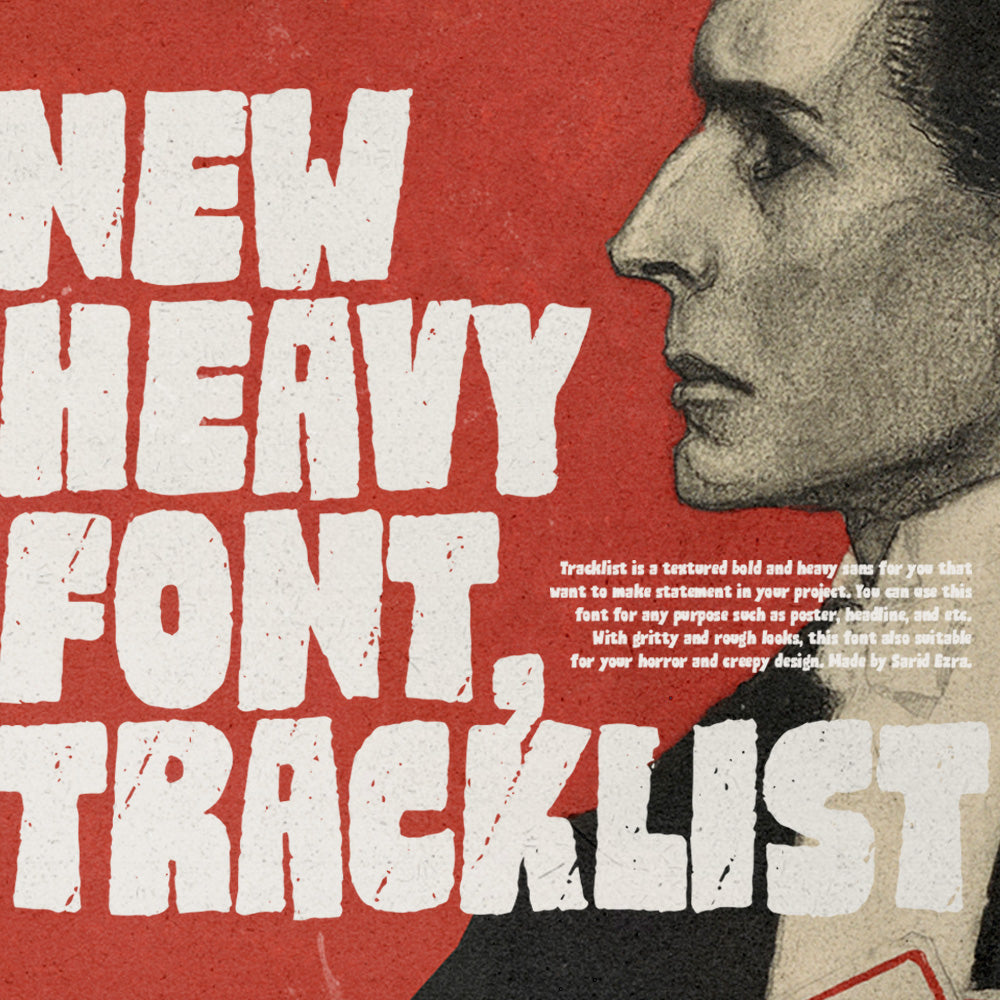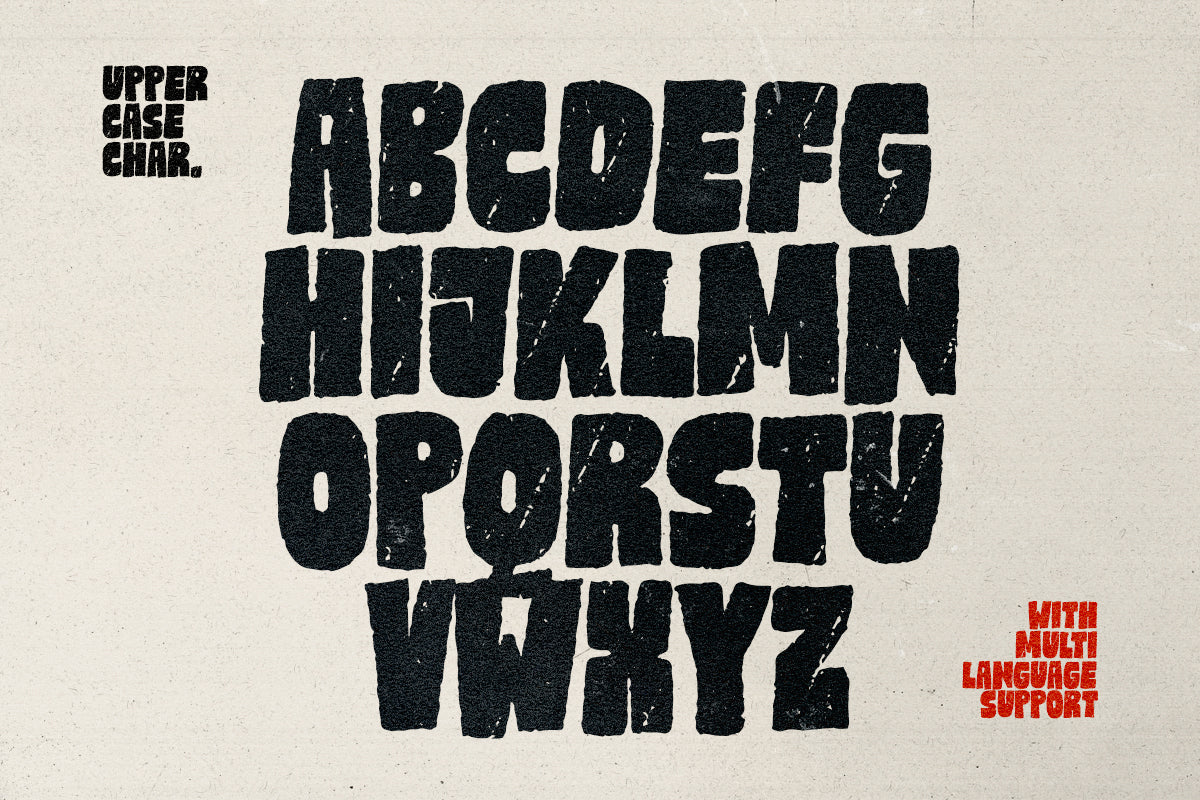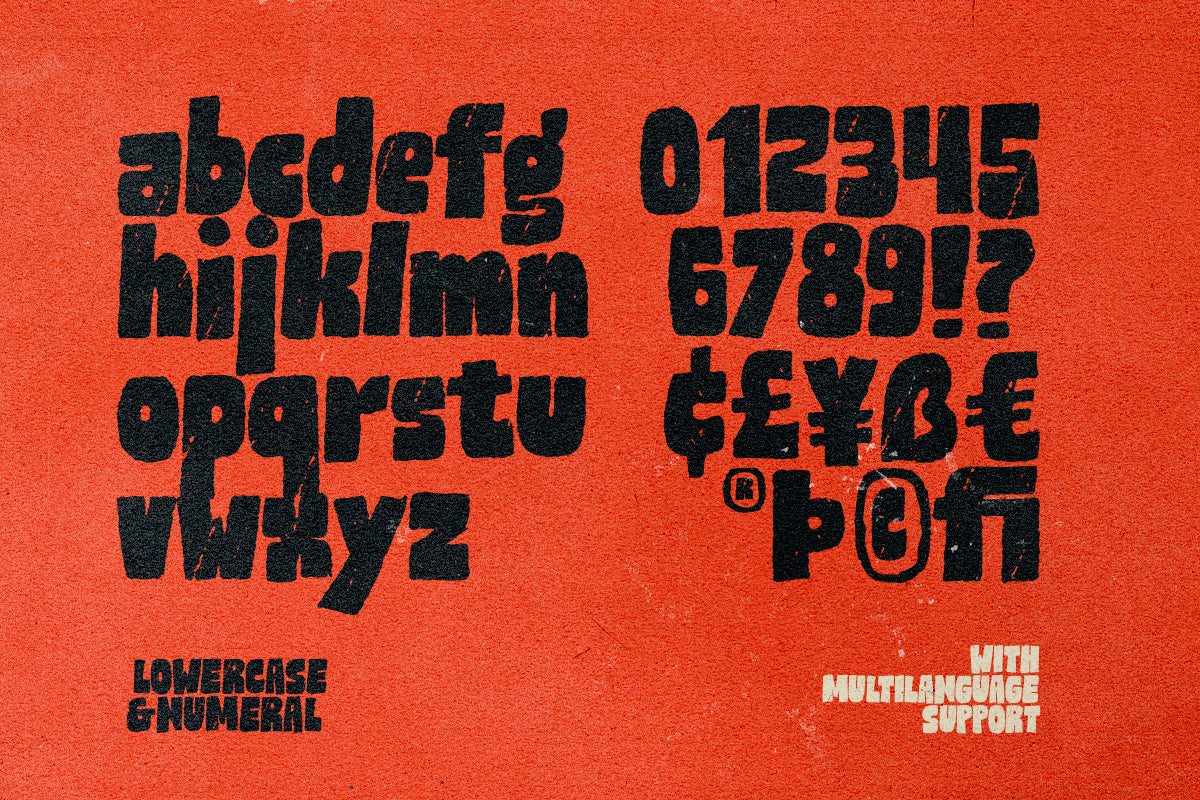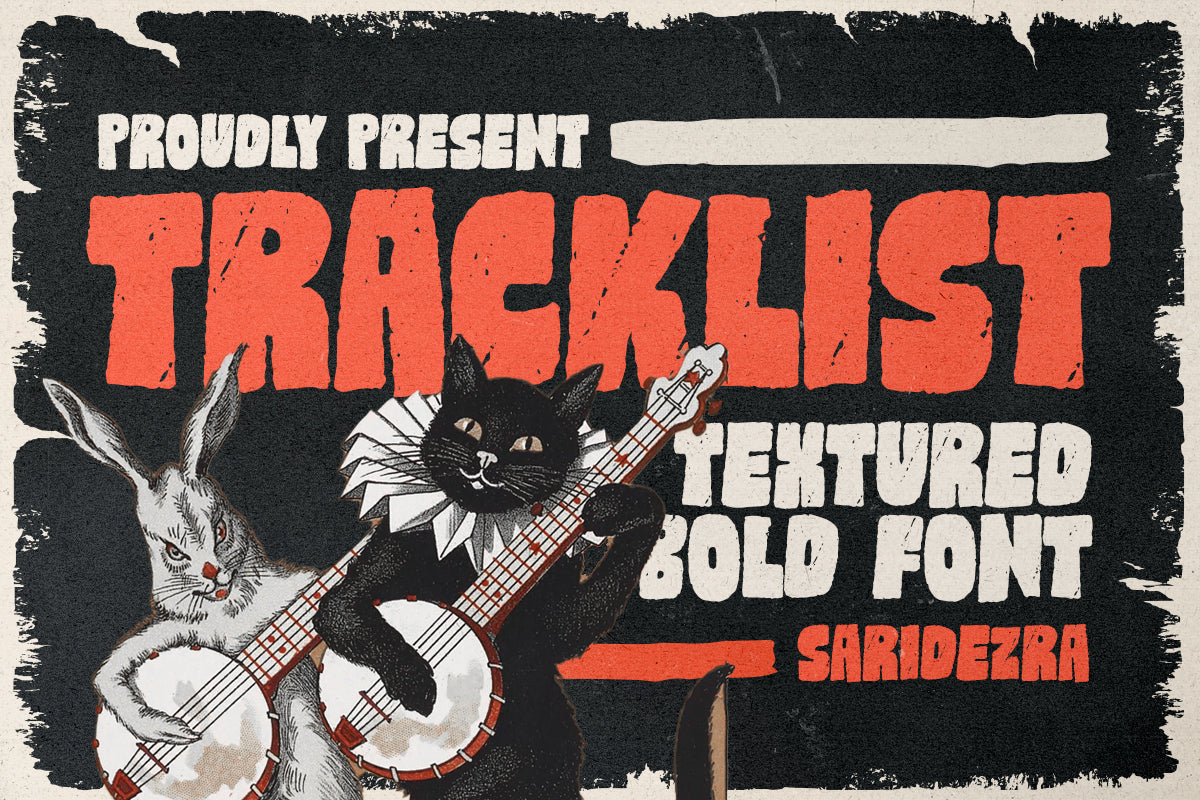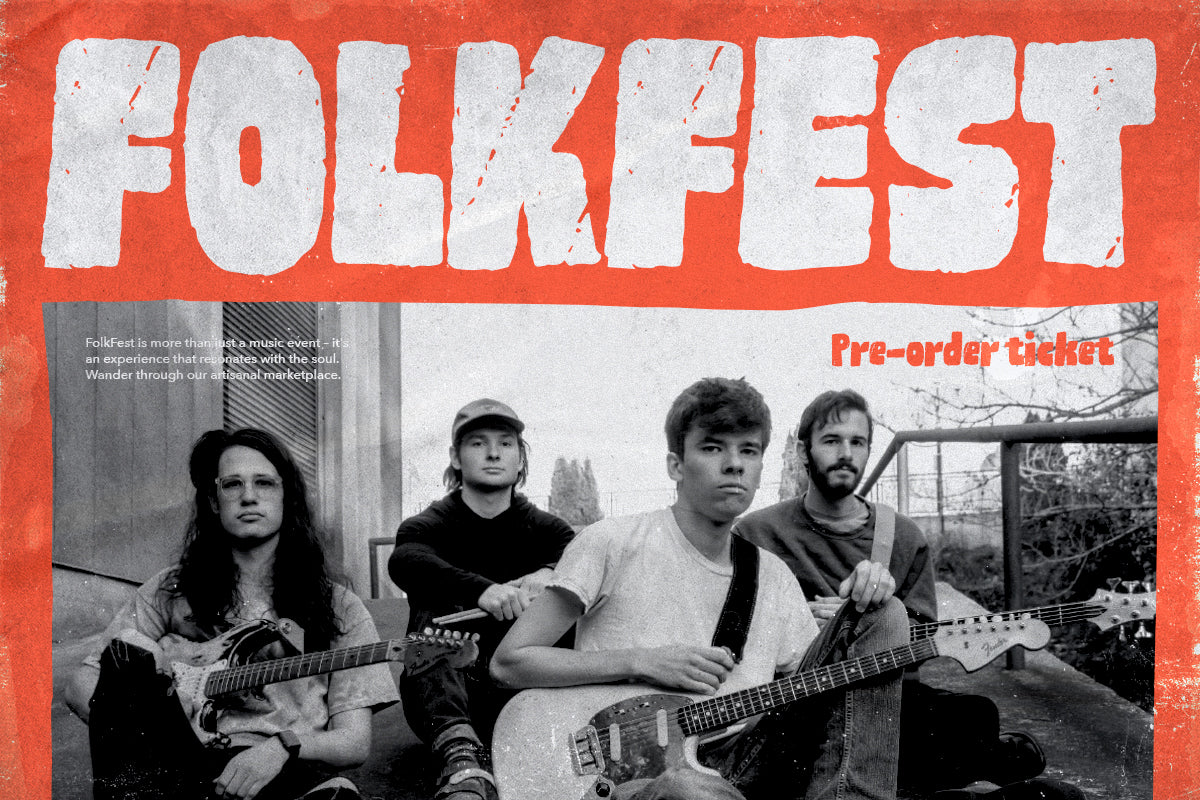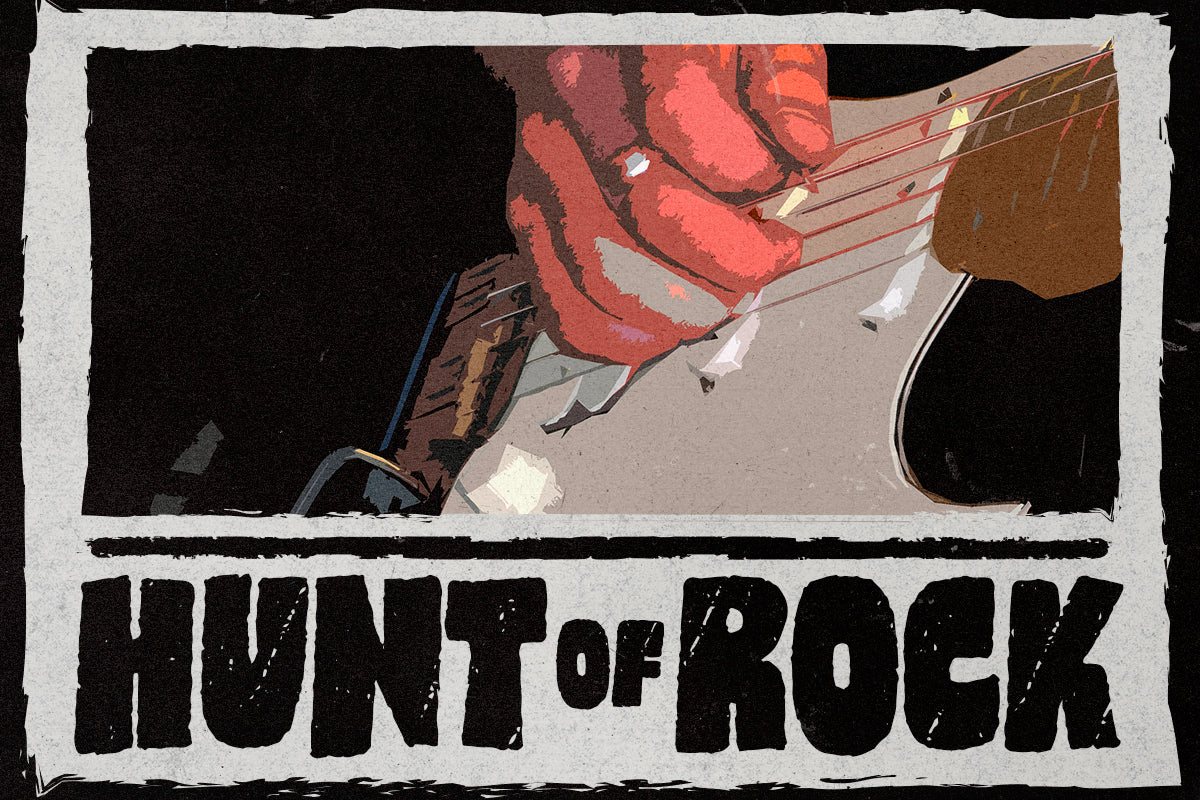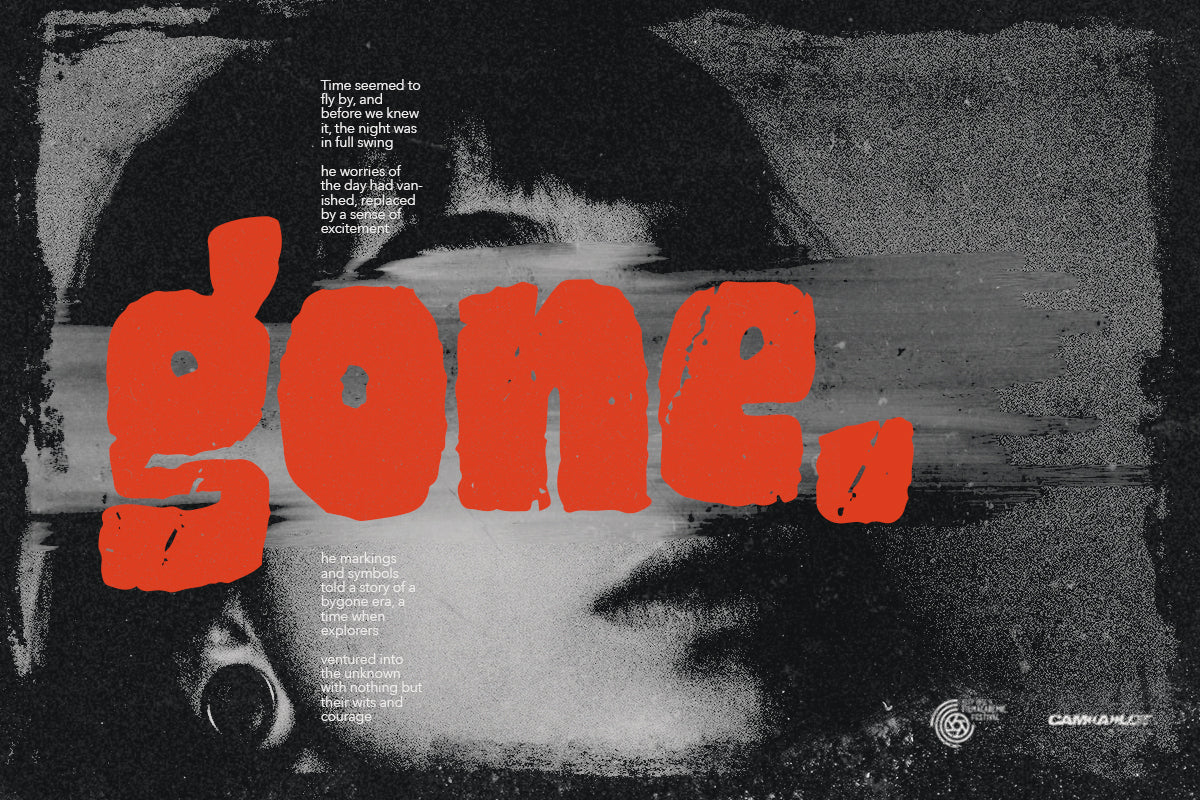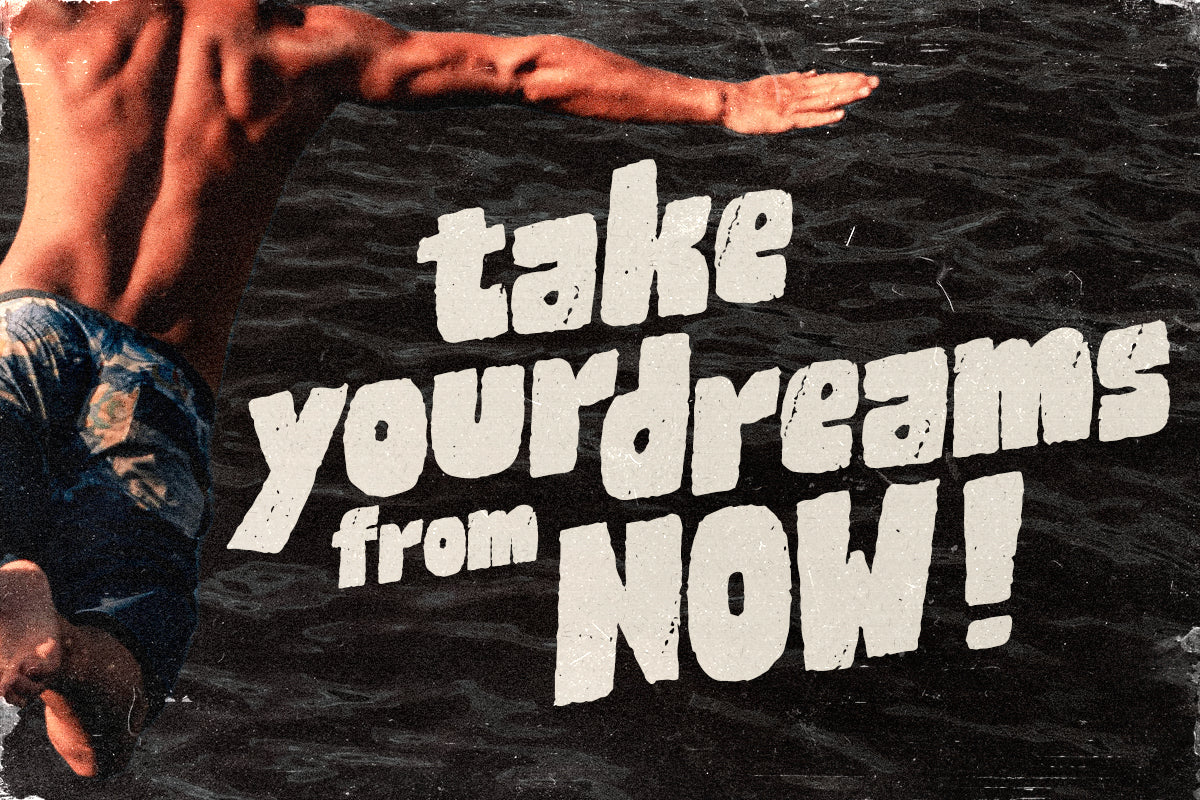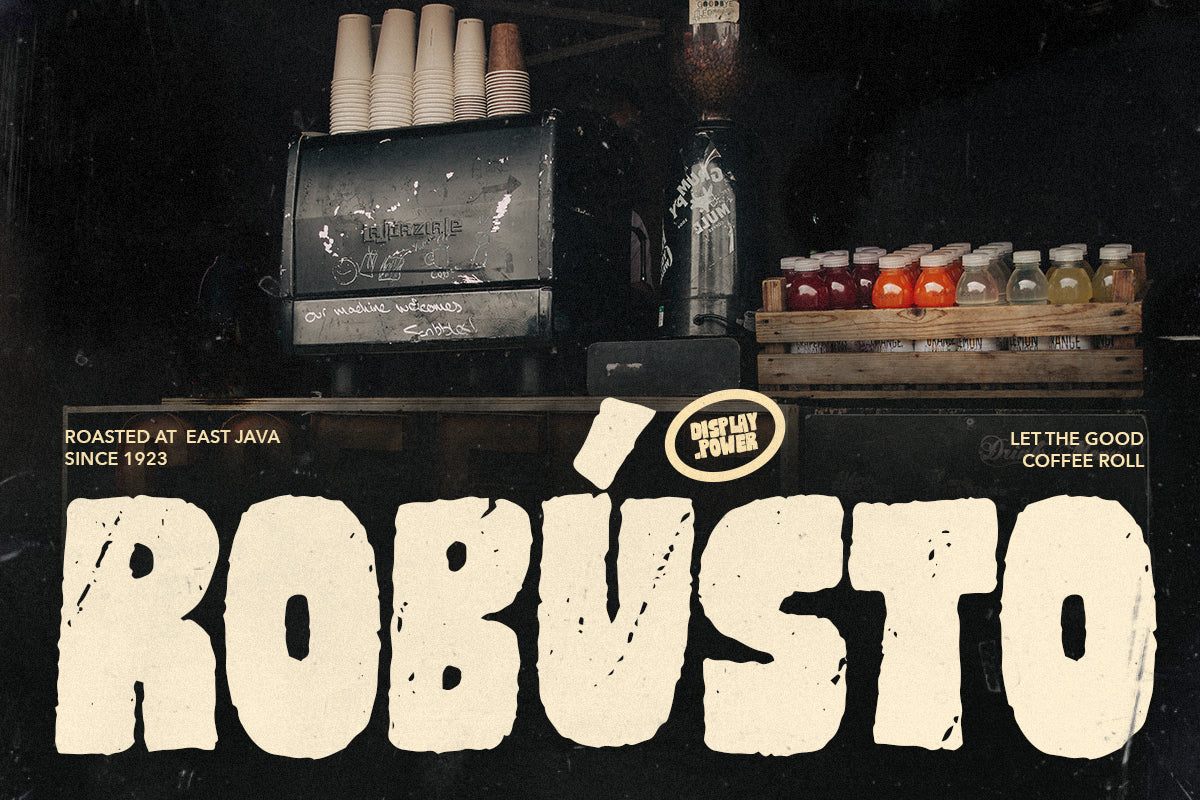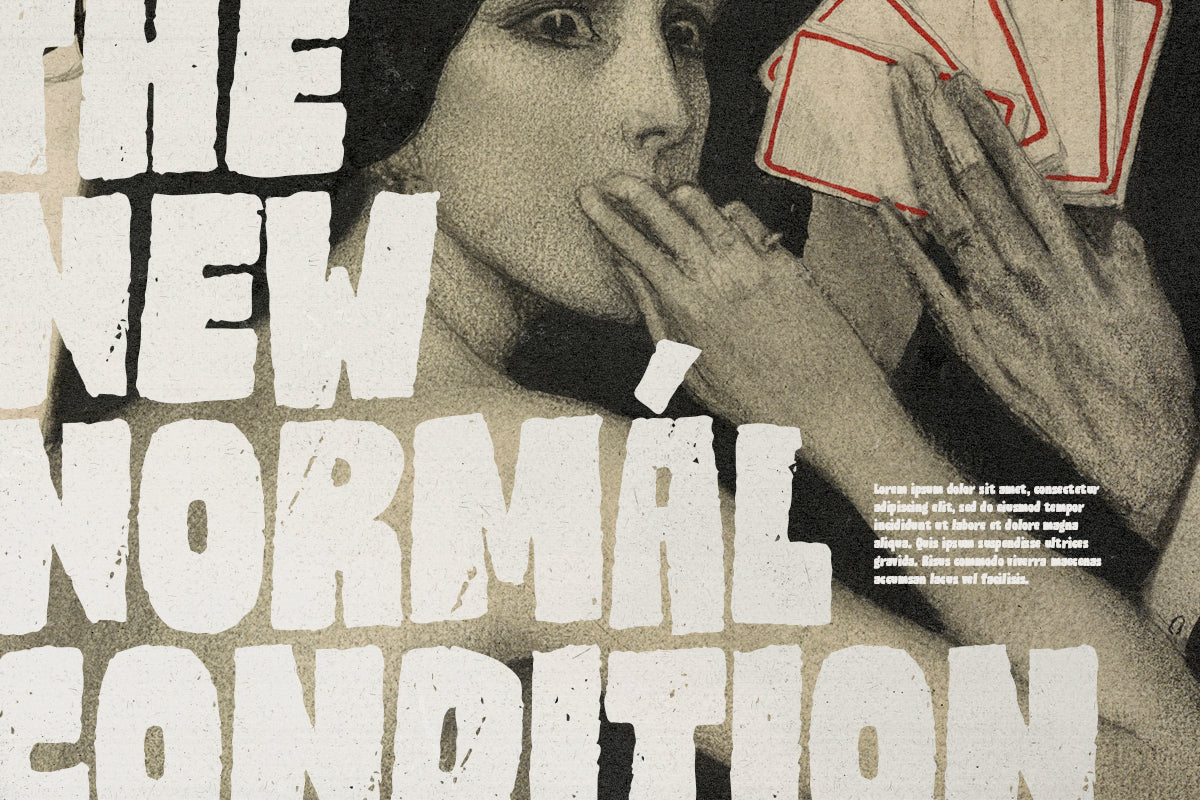
Tracklist - Rough Bold Font
Tracklist is a textured bold sans serif font designed for impactful projects, featuring a gritty and rough appearance. It supports multiple languages and is suitable for various design applications.